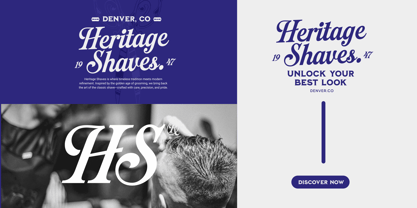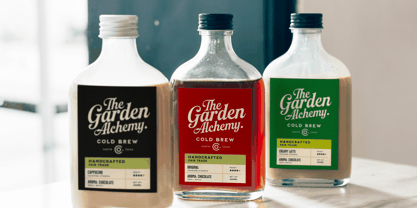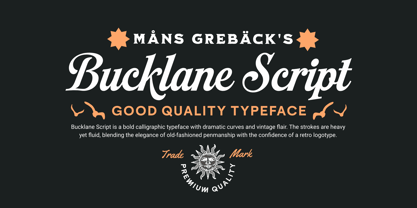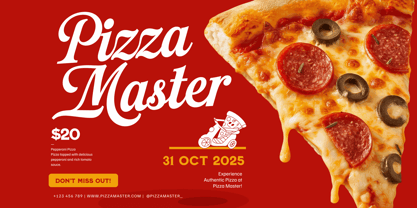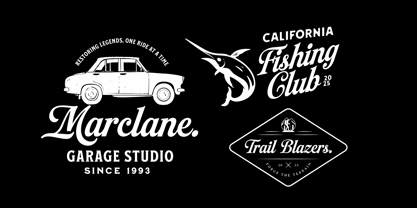
Bucklane Script
by Mans Greback
The Bucklane Script Font Family was designed by Måns Grebäck and published by Mans Greback. Bucklane Script contains 4 styles.
Bucklane Script is a bold calligraphic typeface with dramatic curves and vintage flair. The strokes are heavy yet fluid, blending the elegance of old-fashioned penmanship with the confidence of a retro logotype. With decorative swashes and striking uppercase forms, it adds character to every word--whether it's carved onto a whiskey barrel or lighting up a marquee.
The design draws inspiration from mid-20th-century sign painting, but carries a contemporary sharpness that keeps it relevant and fresh. Lowercase letters maintain readability while echoing the ornamental energy of the capitals, creating a consistent rhythm across any text.
The font is built with advanced OpenType functionality and guaranteed top-notch quality, containing stylistic and contextual alternates, ligatures and more automatic and manual features; all to give you full control and customizability.
It has extensive lingual support, covering all Latin-based languages, from North Europa to South Africa, from America to South-East Asia. It contains all characters and symbols you'll ever need, including all punctuation and numbers.